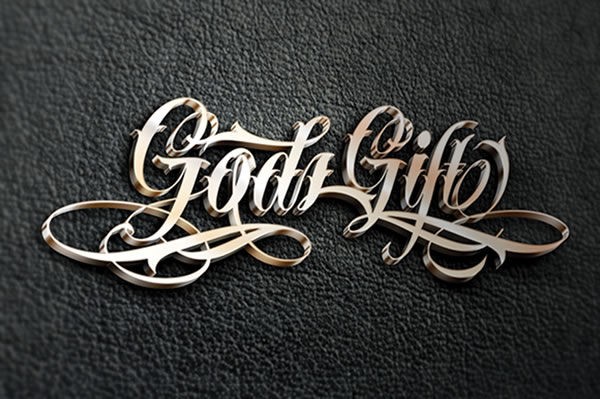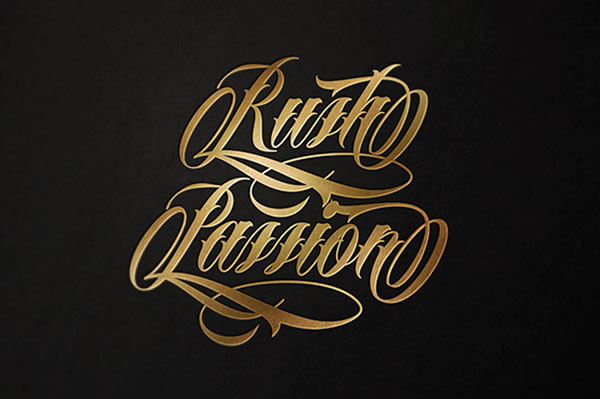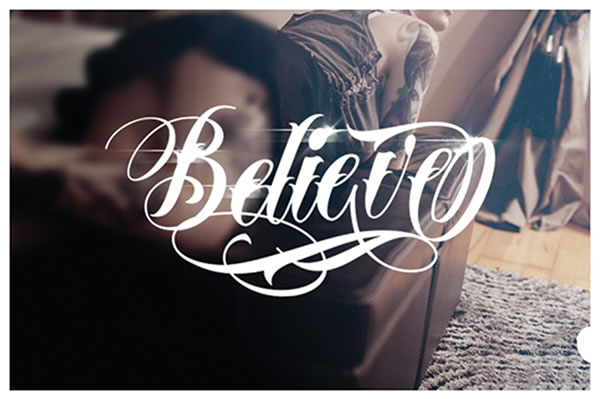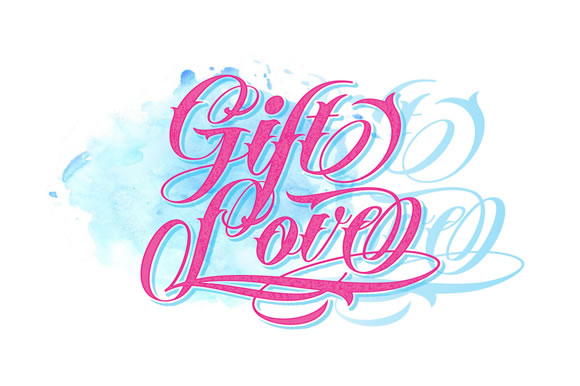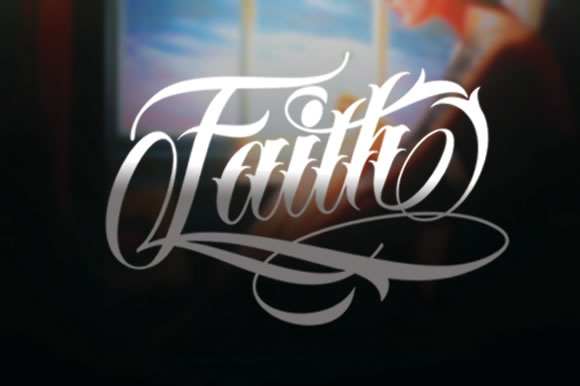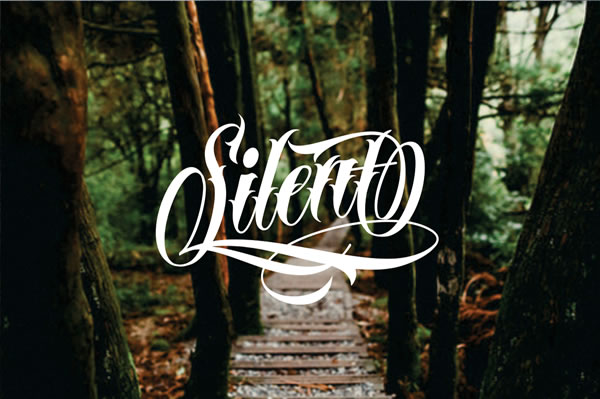
Introduction to Mr Brown Font
Have you ever found yourself stuck in a creative rut, desperately searching for the perfect font to bring your project to life? I’m sure we’ve all been there. For designers, the hunt for the ideal typography can be a daunting task, especially when working on a creative project that requires a high level of precision and attention to detail.
That’s where the Mr Brown Font comes in – a beautiful script font designed to elevate your design game and add a touch of sophistication to your work. This stunning font, created by VMF Font, is a valuable resource for designers looking to add a unique and personal touch to their projects.
About the Mr Brown Font
Key Features of Mr Brown Font
- Unique characteristics: Distressed texture and vintage aesthetic, perfect for adding a touch of nostalgia to your design
- Mr Brown Font is a versatile font suitable for a variety of creative projects, including logos, branding, and typography-based designs
Honest Review: Mr Brown Font
I recently stumbled upon the Mr Brown Font and was excited to give it a try for my next design project. The Mr Brown Font is a great addition to any designer’s arsenal, especially for those looking for a high-quality, free download.
Here are some things that work well: ✨ The font is highly customizable, allowing you to easily adjust the size and color to fit your needs. ✨ The transparent background makes it easy to layer over other design elements. ✨ The font is also incredibly versatile, making it perfect for a wide range of creative projects.
However, there are some limitations: ⚠️ The font may not be suitable for professional printing due to its relatively low resolution. ⚠️ The font does not include any additional characters or symbols, so you may need to supplement with other fonts.
Overall, I’m really impressed with the Mr Brown Font. It’s a great resource for designers looking to add some flair to their projects without breaking the bank. With its high quality and versatility, I can see it becoming a go-to font for many designers.
Tips for Getting the Most Out of Mr Brown Font
To get the most out of the Mr Brown Font, use it with a transparent background to give your design a clean and modern look. You can also pair it with other fonts to create a unique and creative design.
Common Use Cases for Mr Brown Font
The Mr Brown Font is commonly used in graphic design, branding, and advertising. It’s also great for use in digital design, such as website design and social media graphics.
Alternatives to Mr Brown Font
Comic Sans MS is a classic sans-serif font suitable for informal designs, children’s books, and creative projects. It’s a free download and comes with a transparent background, making it easy to overlay on images. When to use: Casual design, children’s content, and playful creatives.
Comparison to Mr Brown Font: Comic Sans MS has a more playful and childlike feel, whereas Mr Brown Font is more professional and elegant. Use Comic Sans MS for a lighthearted, humorous design, and Mr Brown Font for a more sophisticated look.
Open Sans is a high-quality sans-serif font that’s perfect for digital design, websites, and mobile apps. It’s available for free download and comes with a transparent background. When to use: Modern design, digital products, and high-end websites.
Comparison to Mr Brown Font: Open Sans is more modern and sleek, while Mr Brown Font is more classic and elegant. Use Open Sans for a contemporary design, and Mr Brown Font for a timeless look.
Lato is a beautiful sans-serif font that’s ideal for creative projects, logos, and branding. It’s available for free download and comes with a transparent background. When to use: Creative projects, logos, and branding.
Is the Mr Brown Font a high-quality design resource?
Yes, the Mr Brown Font is a high-quality design resource that is carefully crafted to provide a unique and stylish look for your creative project. The font is designed to be highly legible and versatile, making it suitable for a wide range of design applications, from print to digital media.